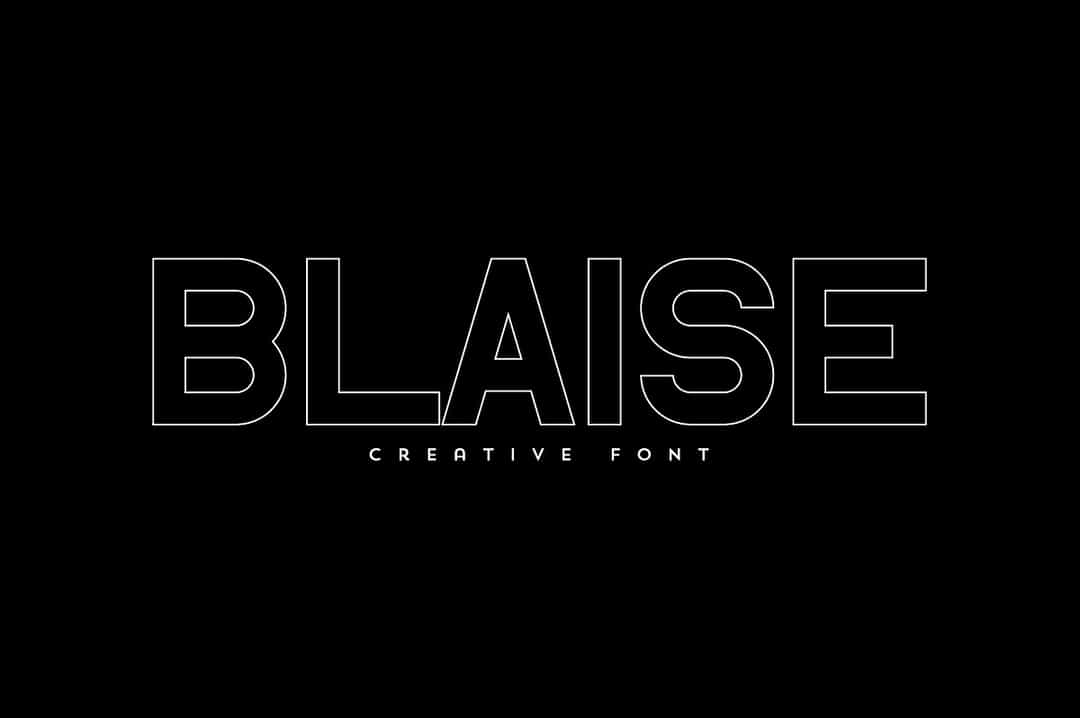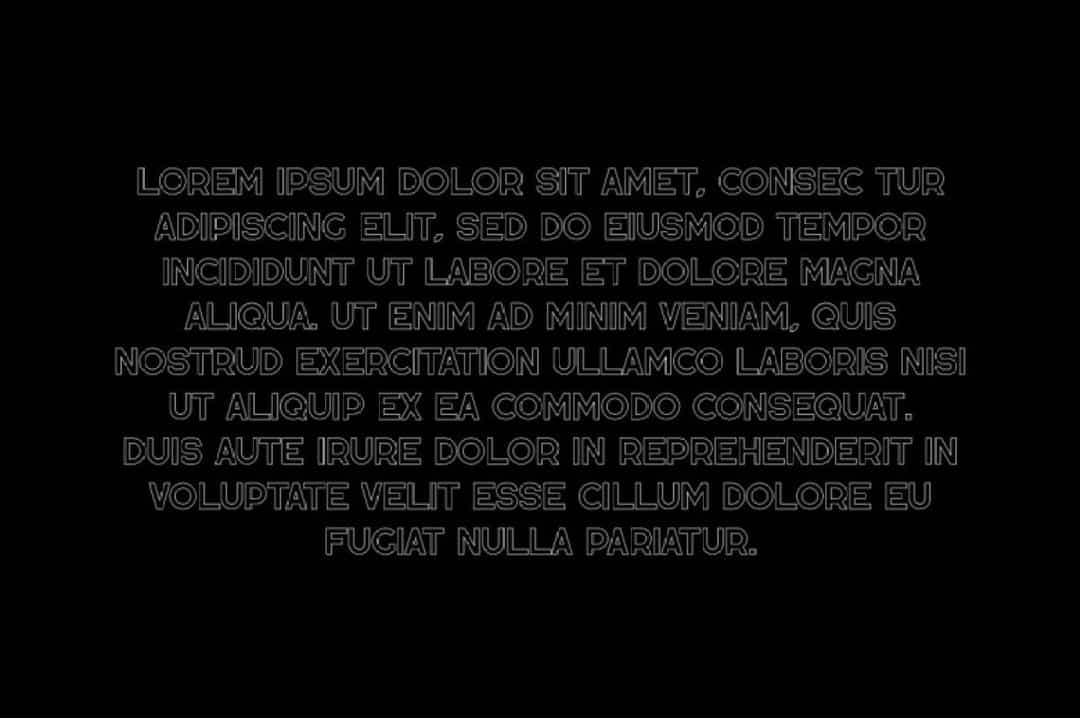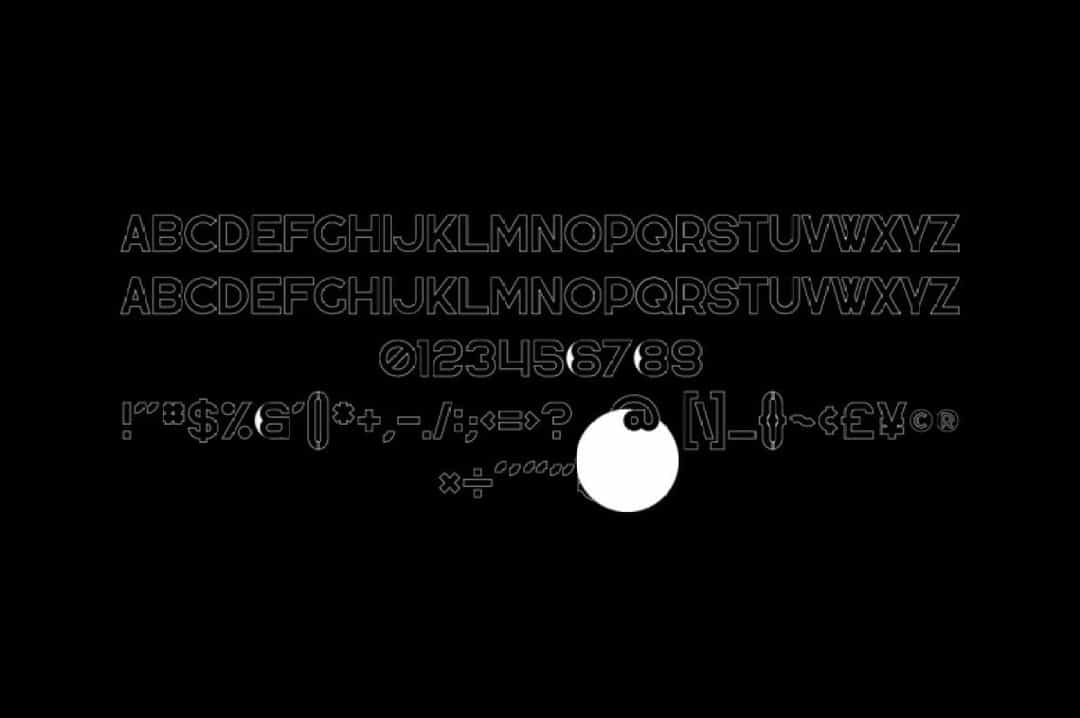
Blaise is an exquisite and versatile outline sans serif font that can turn any piece of typography into something truly remarkable! Perfect for headlines, logos, branding designs or simple text applications; its graceful elegance will amaze any audience!